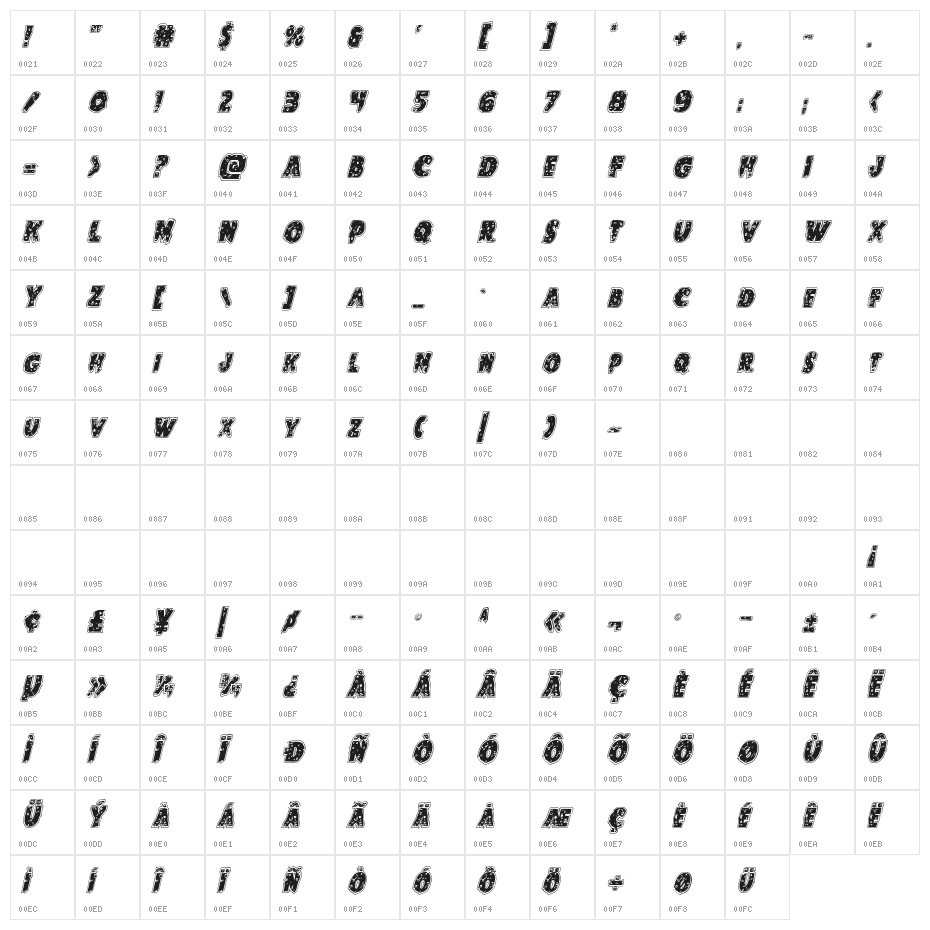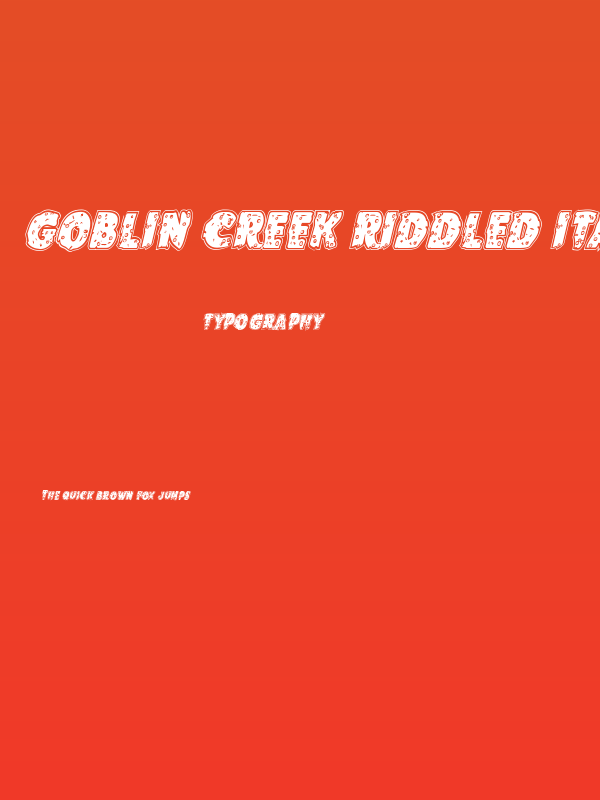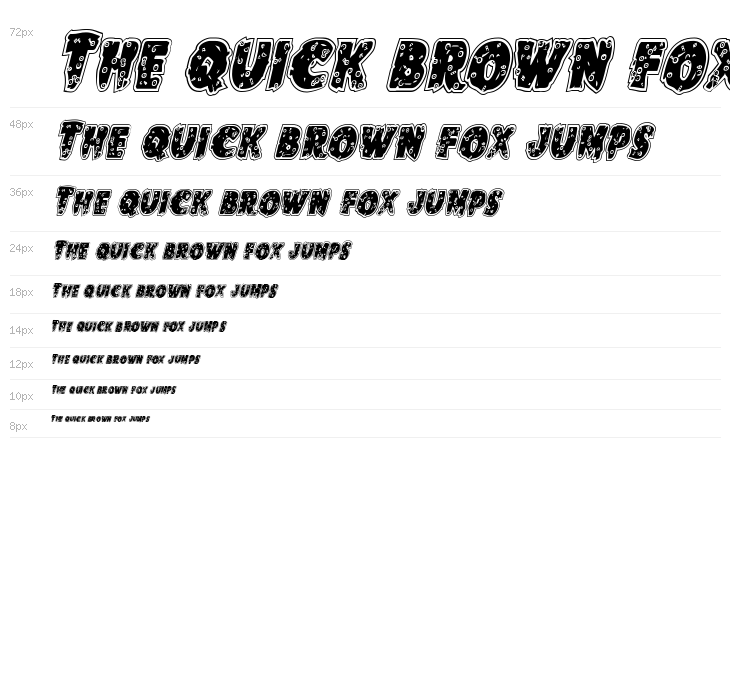
Goblin Creek Riddled Italic Font
Goblin Creek Riddled Italic Description
This font features a bold, playful design with a distinct outline and a riddled, textured appearance. The letters are heavily stylized, with a cartoonish, whimsical quality that makes them stand out. Each character is filled with irregular shapes and patterns, giving it a unique, eye-catching look. The font is italicized, adding a dynamic, forward-leaning slant to the characters. It is well-suited for creative and fun projects, where a sense of adventure and imagination is desired. The numbers and special characters maintain the same playful style, ensuring consistency across all text elements.
| Proposed Projects | Ideal for children's book covers, comic titles, Halloween-themed designs, and playful branding. |